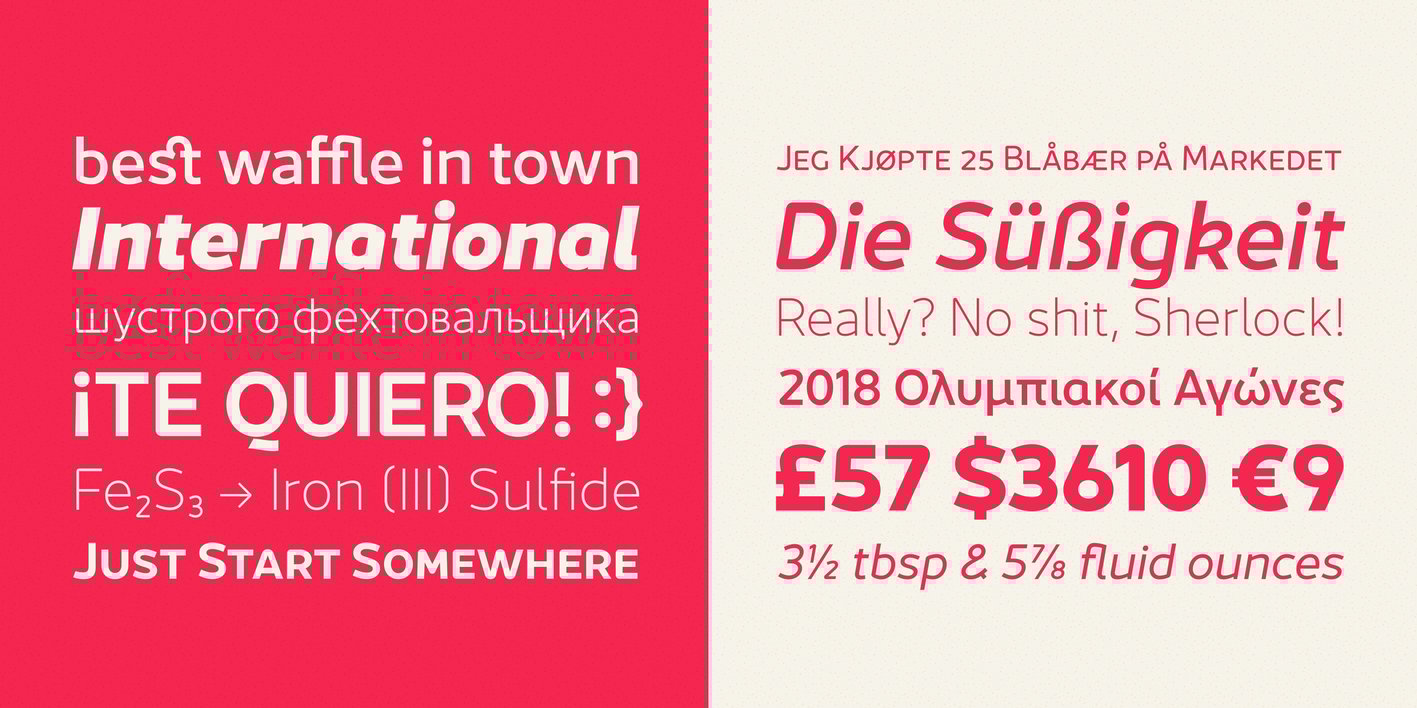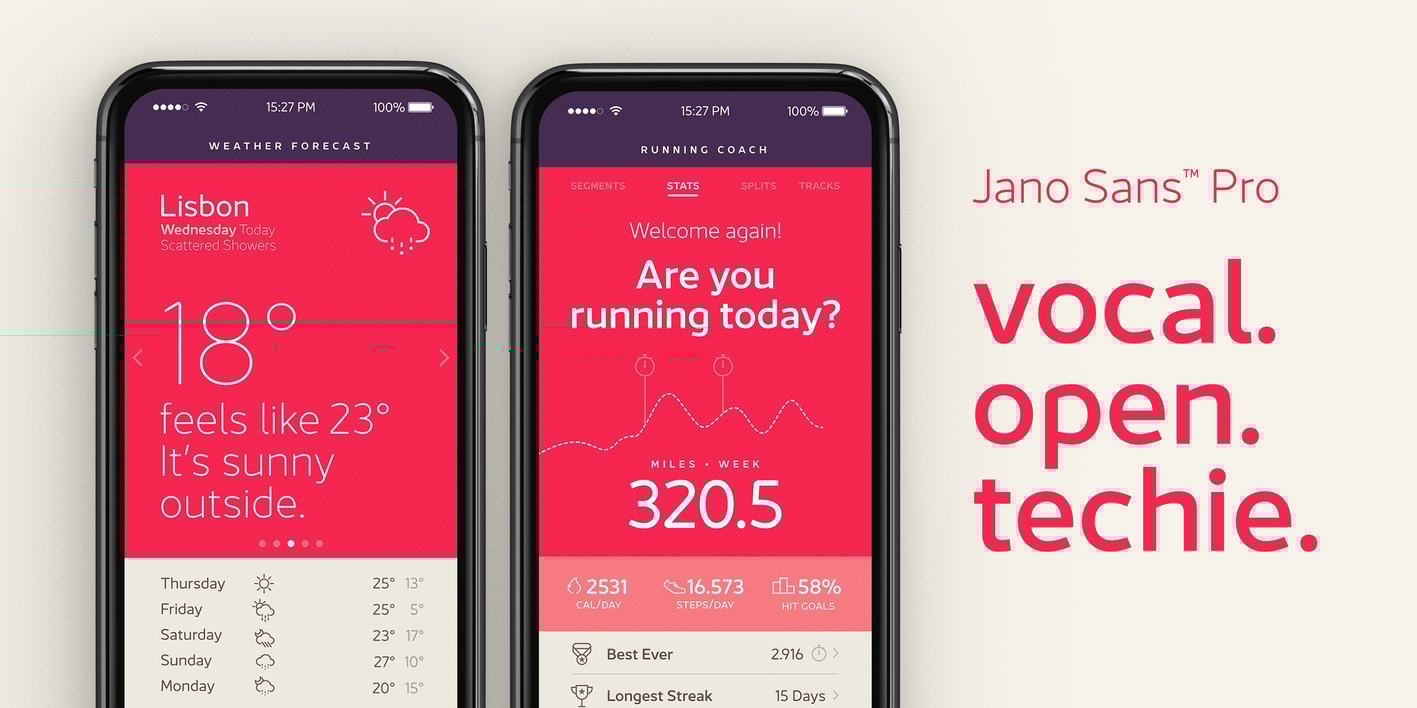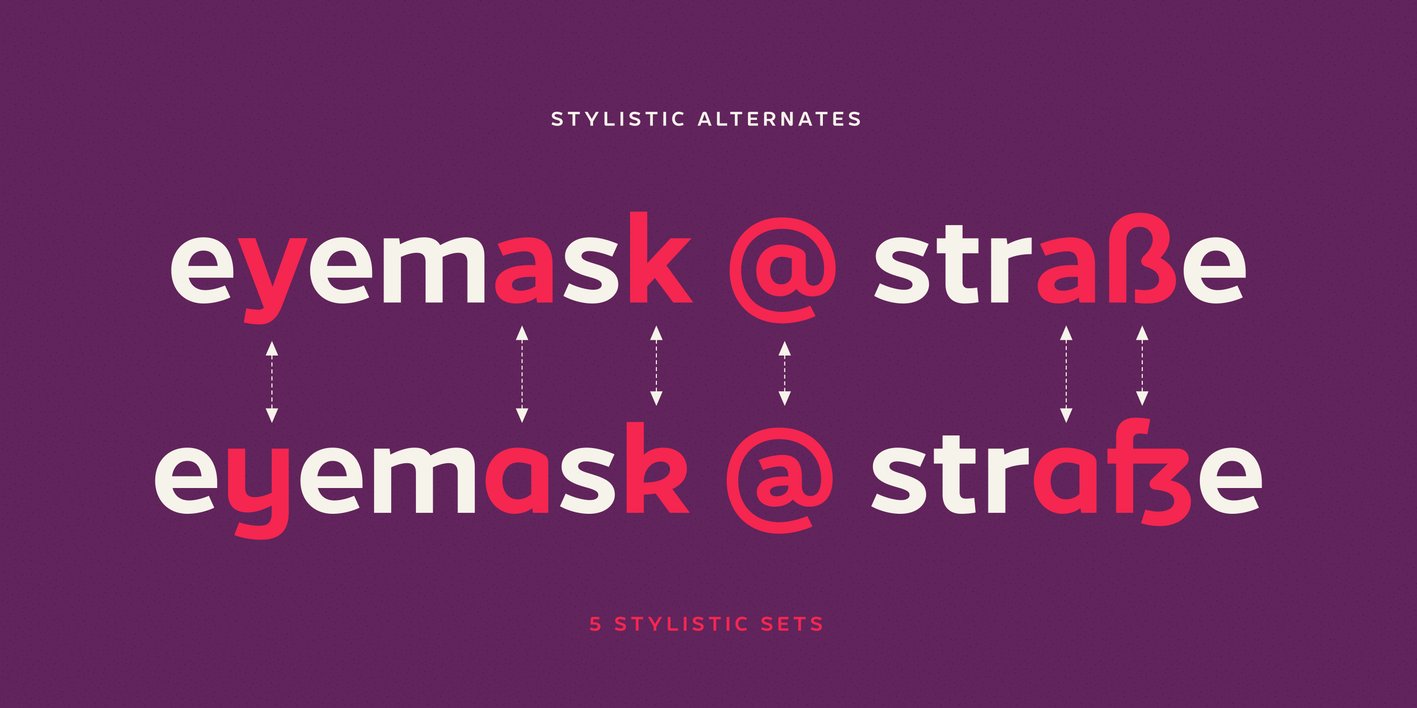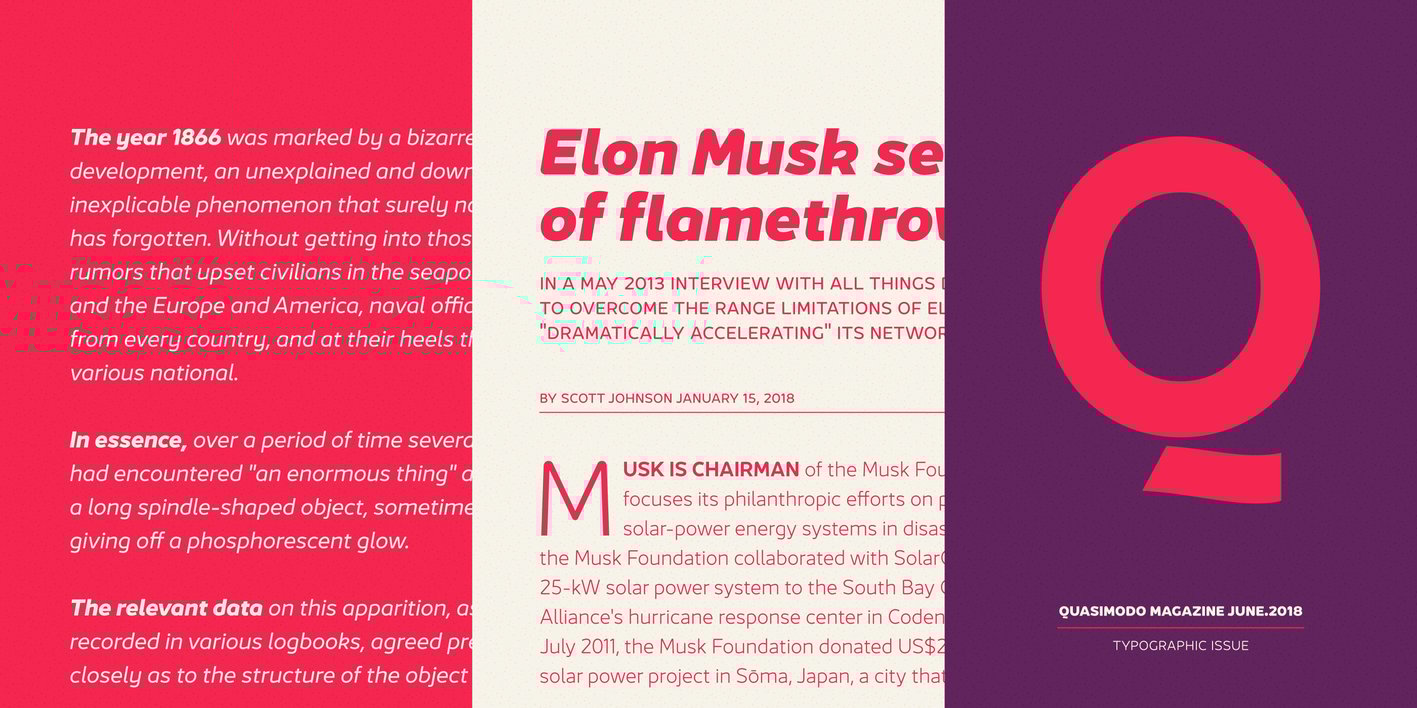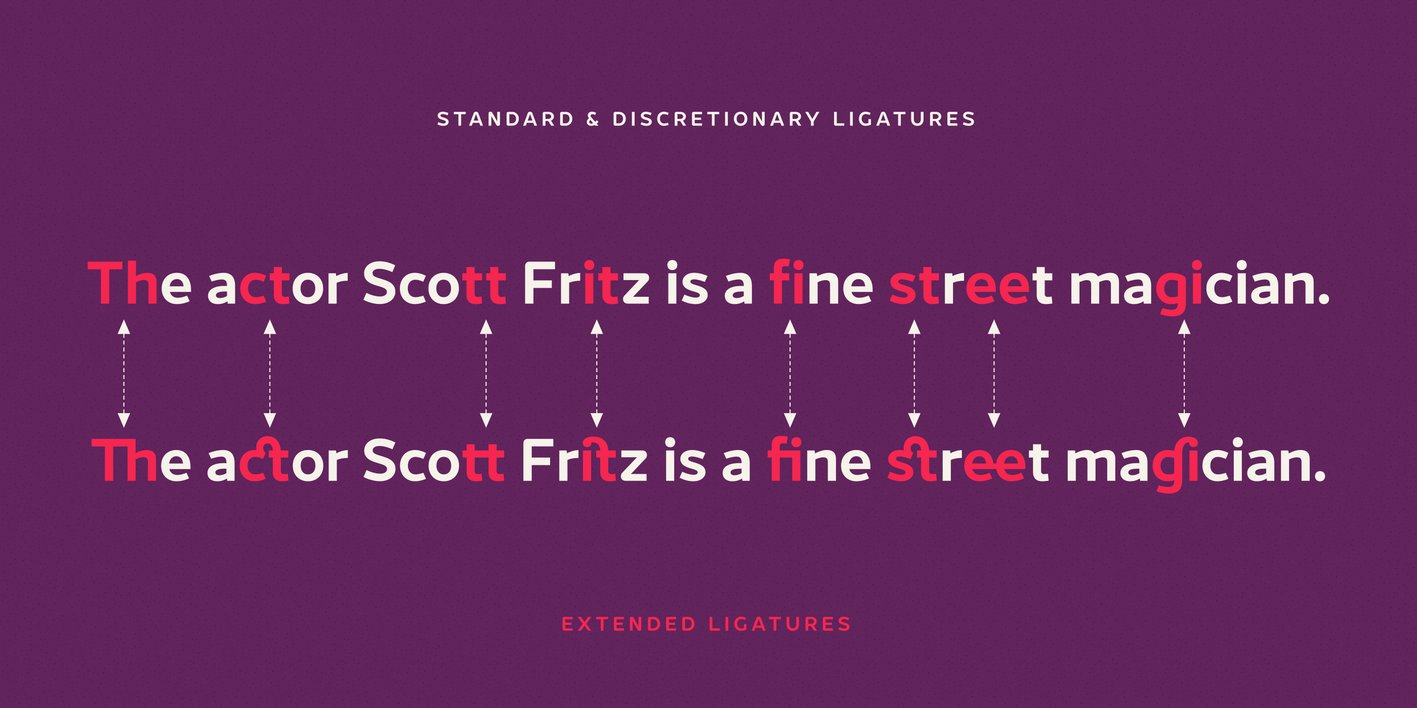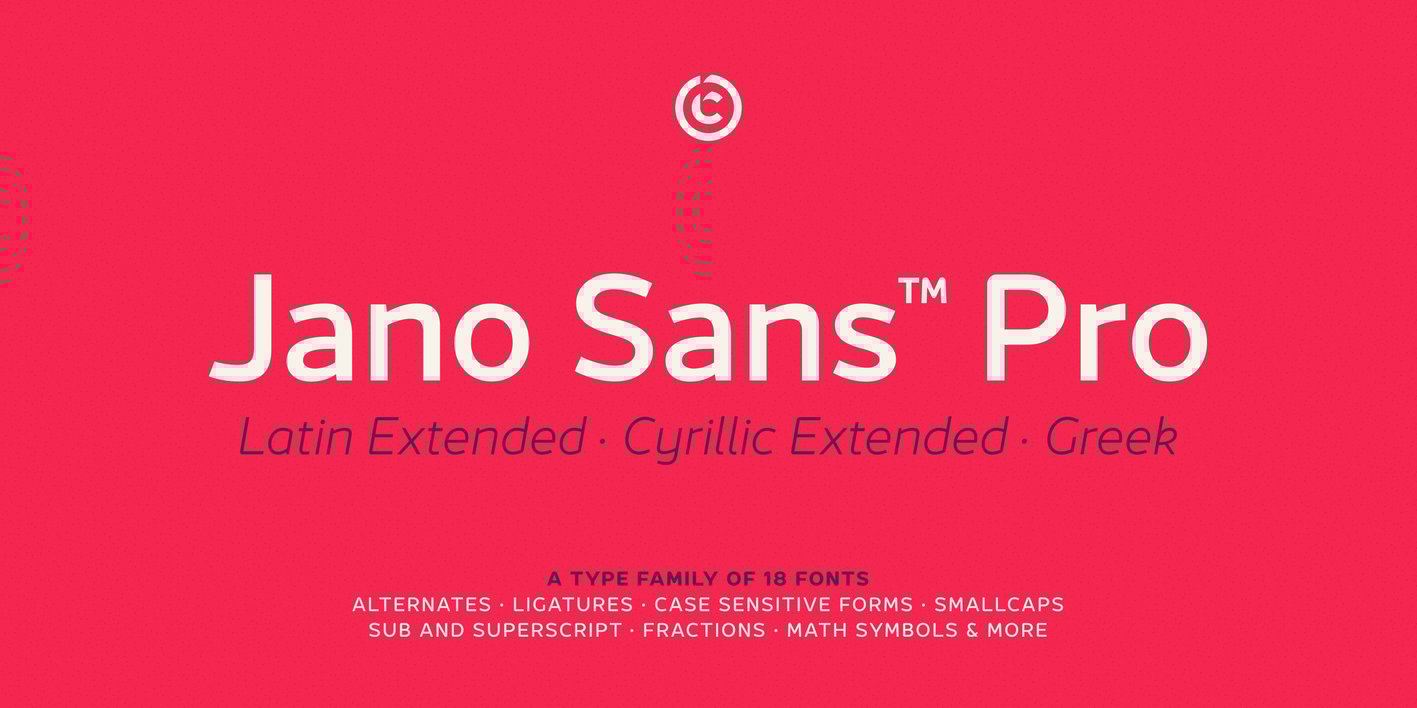
Jano Sans Pro Font
Jano Sans™ Pro is a neo humanist sans serif that was initially created to be used as a text and display typeface in brand communication. The result is a type family with a relatable character and a collaborative profile. Designed with elegant forms, low contrast and a geometric feel, Jano Sans™ Pro is a highly legible typeface suited for any text application and typographic reproduction. Jano Sans™ Pro has 18 styles and its a workhorse type system. It covers 290+ languages, including Extended Latin, Cyrillic and Greek writing systems. With over 1800 glyphs per style, its Opentype features include alternative shapes, small caps, standard and discretionary ligatures, localized forms in Latin and Cyrillic, case sensitive forms, numerators and denominators, proportional and tabular figures, slashed zero, fractions and more. The techie personality and the huge set of features and glyphs makes Jano Sans™ Pro an excellent choice for a wide range of applications, such as branding, editorial, web and broadcast.